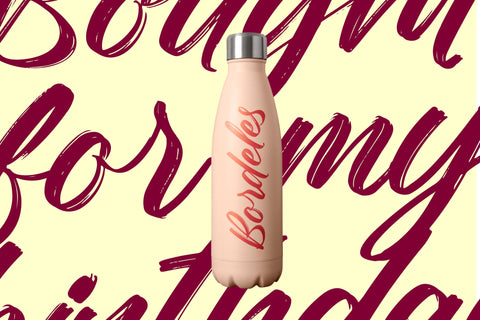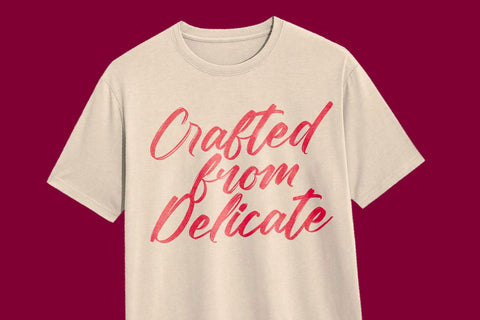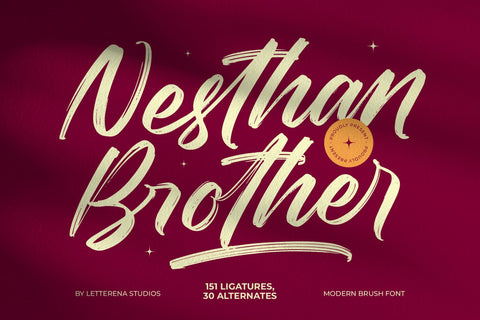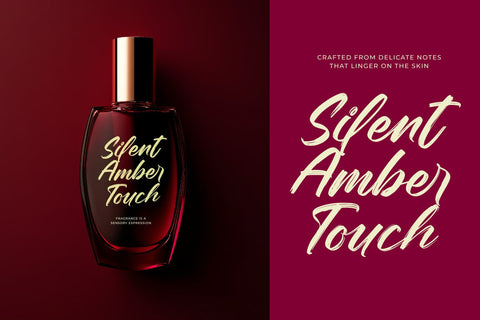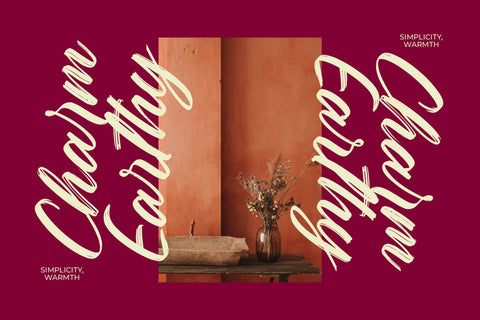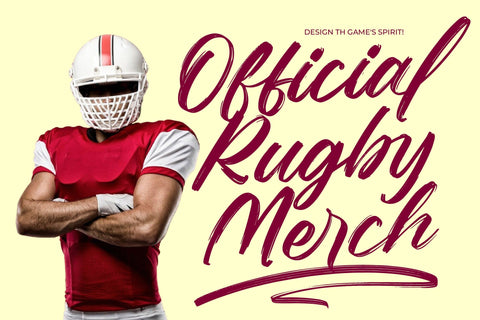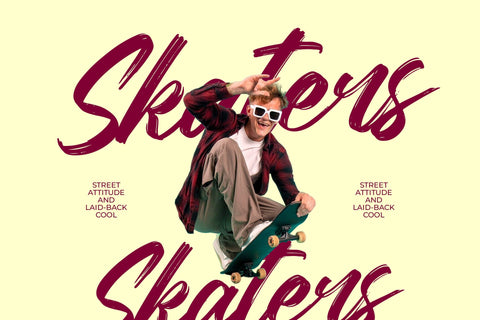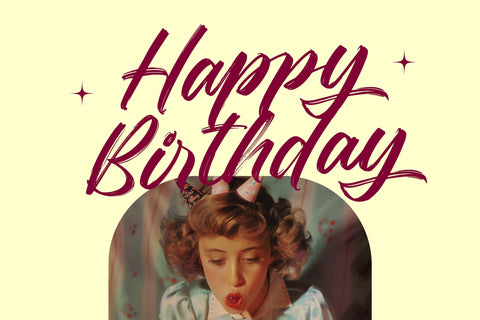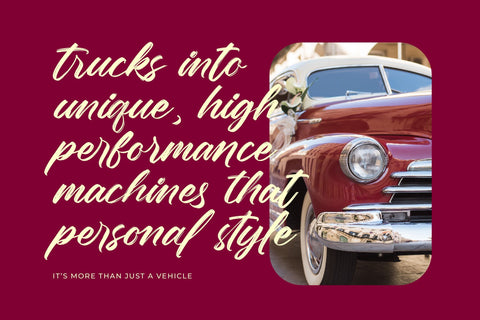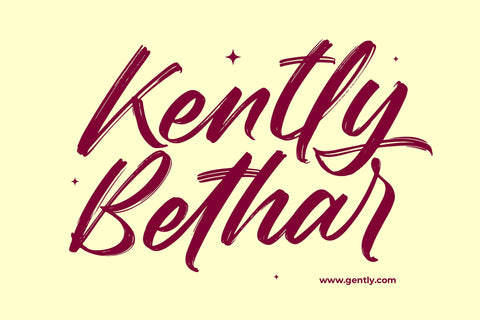
Nesthan Brother - Modern Brush Font
Nesthan Brother - Modern Brush Font , from Letterena, is a Luxury Script font, suitable for any projects such as: logos, branding projects, homeware designs, product packaging, mugs, quotes, posters, shopping bags, t-shirts, book covers, name card, invitation cards, greeting cards, label, photography, watermark, special events, and all your other luxury and beautiful projects that need a Luxury Script taste.
- 151 Ligature 30 Alternate & Swashes